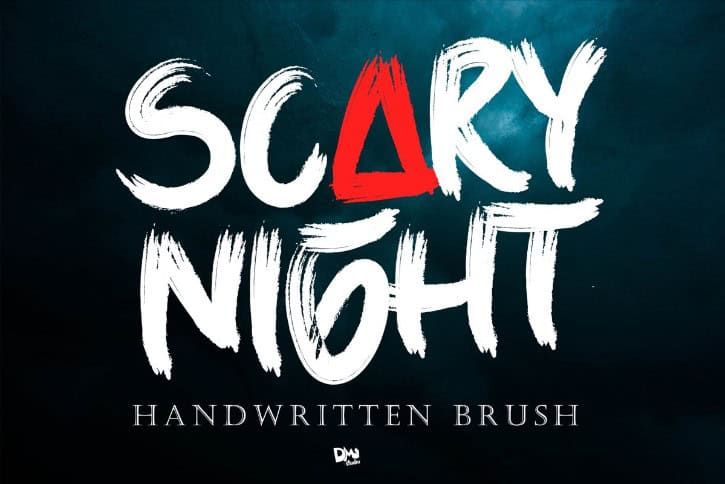
Scary Night – Handwritten Brush
Scary Night is a creepy, handwritten brush font, suitable for your halloween moment!
Features :
– All in caps
– Numeric
– Symbols